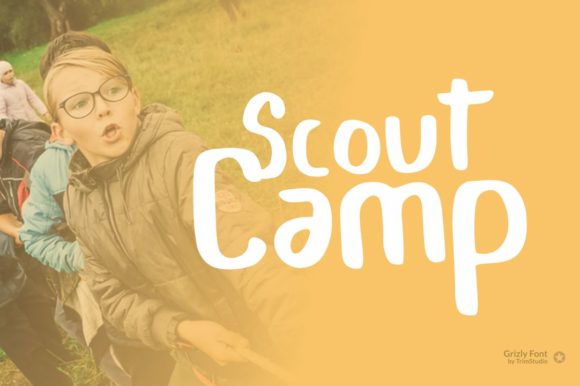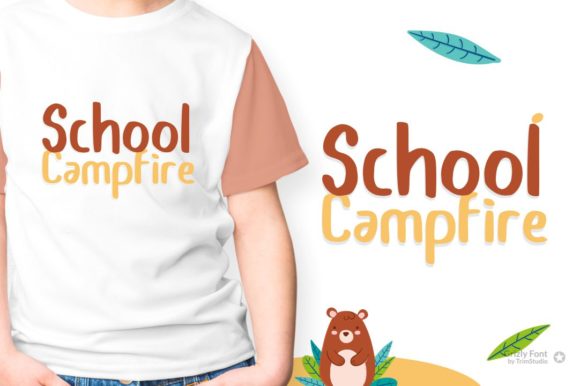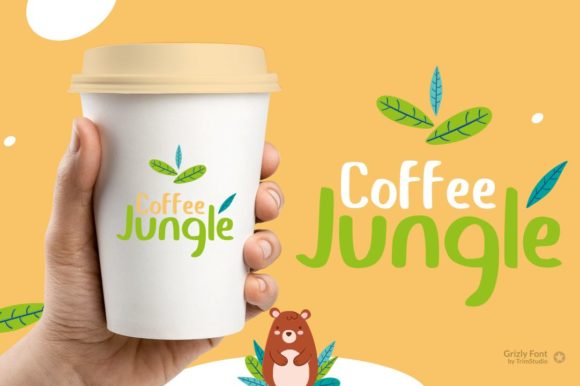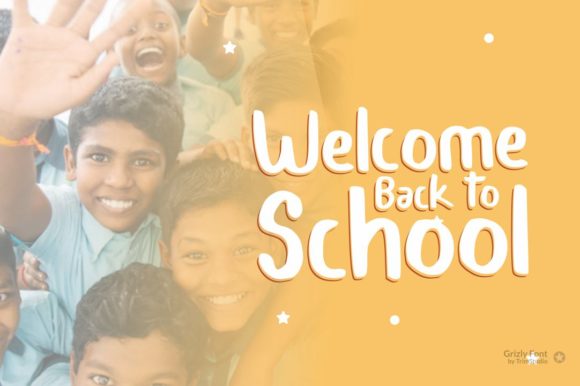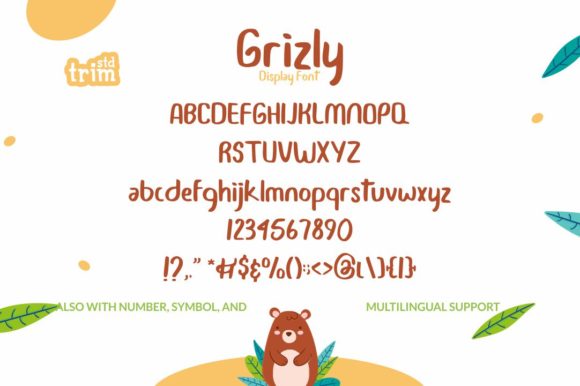
The Sweet Spot: Discovering the Charm of Grizly Font
An Honest Review: The Good and the Quirks
What I Love About Grizly Font
- ✨ Versatility: Grizly Font is incredibly versatile, making it suitable for a wide range of contexts, from branding and advertising to crafting and DIY projects.
- ✅ Readability: The font is easy to read, even at smaller sizes, making it perfect for body text and captions.
- 💡 Creativity booster: Grizly Font’s simplicity and charm can help spark creativity and add a unique touch to your designs.
While Grizly Font is an excellent choice, it’s not without its quirks. ⚠️ Some users may find that the font:
- 🤔 Lacks extensive language support: Grizly Font may not support all languages or special characters, so be sure to check its limitations before use.
- ⚠️ May not be suitable for very formal projects: Grizly Font’s friendly nature may not be the best fit for very formal or corporate projects.
The Story Behind Grizly Font
Grizly Font was designed with the goal of creating a friendly and approachable display font. Its simplicity and charm make it perfect for a wide range of creative projects. While the actual designer behind Grizly Font may not be well-known, it’s clear that their intention was to craft a font that would bring a touch of warmth and personality to any design.
| Font Name | Grizly Font |
| Author | Trim Studio |
Q: What is Grizly Font best suited for?
A: Grizly Font is best suited for creative projects that require a friendly and approachable feel, such as branding, advertising, and crafting.
Q: Is Grizly Font suitable for body text?
A: Yes, Grizly Font is suitable for body text, but its readability may decrease at very small sizes.